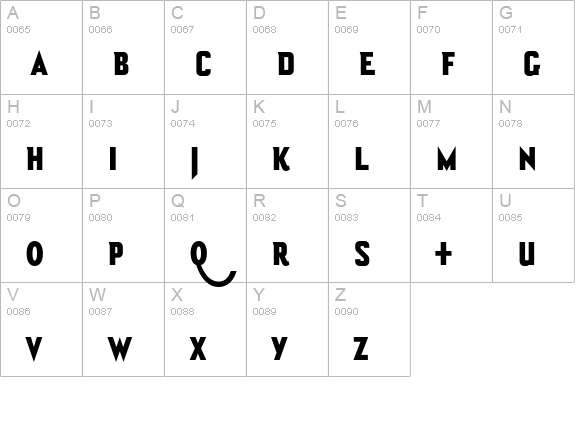
Bourgeois UltraCondAlt Font Details
Bourgeois UltraCondAlt is a sophisticated and elegant font that exudes a sense of refinement and luxury. Its sleek and slender letterforms make it ideal for creating a modern and minimalist aesthetic. This font is perfect for use in high-end branding, fashion editorials, and upscale design projects. What sets Bourgeois UltraCondAlt apart is not only its exquisite design, but also the fact that it is offered for free download at FontsMarket.com. This means that you can elevate your creative projects with this premium typeface without breaking the bank. Don't miss out on the opportunity to add a touch of class to your designs with Bourgeois UltraCondAlt. Download it now and let your creativity shine.